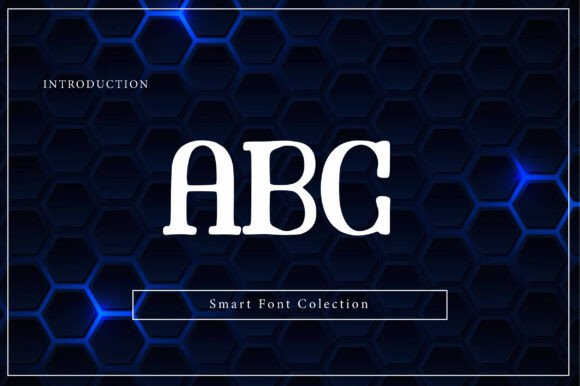
The Art of Balance: Crafting a Unique Visual Identity
As designers, we’ve all been there – staring at a blank canvas, trying to distill the essence of a brand’s personality into a single, striking visual element. For me, it’s the moment when a font finally clicks, and the entire design starts to come alive. And that’s exactly what happens when you introduce the Floralith Slab Font into your creative workflow.
This beautifully crafted slab serif font is more than just a pretty face; it’s a masterful blend of strength and elegance. By combining the timelessness of traditional slab structures with refined, decorative curves, Floralith Slab Font offers a softer alternative to purely industrial designs. Whether you’re crafting high-end editorial layouts or luxury boutique branding, this versatile font is sure to elevate your designs and leave a lasting impression.
Key Features of Floralith Slab Font
- Size: The font family consists of 6 styles, ranging from Thin to Black, providing a comprehensive range of weights for various design applications.
- Unique Characteristics: Floralith Slab Font features a unique blend of modern and classic elements, with clean lines, geometric shapes, and subtle floral motifs, making it perfect for contemporary and vintage-inspired designs.
- Language Support: The font family supports a wide range of languages, including Latin, Cyrillic, and Greek alphabets, making it suitable for international designs and communications.
Floralith Slab Font Review
First of all, I love the unique aesthetic that Floralith Slab Font brings to the table. The ✨ bold, slab serif design is perfect for making a statement in any design project. The font is incredibly versatile and works well in both digital and print media. I’ve used it in various logos, headings, and even signage, and it always delivers.
- The font’s ✨ strong lines and geometric shapes give it a modern feel that’s perfect for contemporary designs.
- It’s ✨ highly legible, even at small font sizes, making it an excellent choice for body text or captions.
- The font’s ✨ wide range of weights and styles allows for endless customization options.
However, I do have a few concerns with the font’s limitations:
- ⚠️ The font may not be suitable for very formal or traditional designs, as its modern aesthetic may clash with more classic styles.
- ⚠️ The font’s bold lines can sometimes make it difficult to read in certain environments, such as on low-contrast backgrounds.
Overall, I think Floralith Slab Font is a great addition to any designer’s toolkit. Its unique design and versatility make it an excellent choice for a wide range of projects. With a little creative experimentation, I’m sure you’ll find ways to make it shine.
Some common use cases for Floralith Slab Font include:
- Headlines and titles
- Branding and logos
- Magazine and newspaper layouts
Alternatives to Floralith Slab Font
Floralith Slab Font is a modern, sans-serif slab font with a unique blend of geometric and organic elements. If you’re looking for alternatives, here are a few options:
Montserrat is a geometric sans-serif font designed for urban environments. It features a strong, modern aesthetic with clean lines and a wide range of weights. Montserrat is ideal for use in digital products, signage, and publications where a modern, urban feel is desired. Compared to Floralith Slab Font, Montserrat is more geometric and lacks the organic elements found in Floralith.